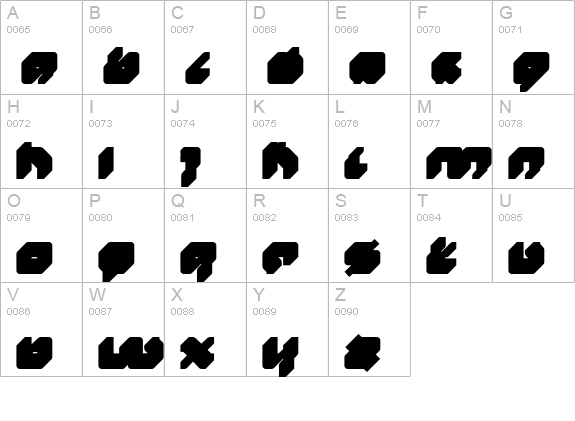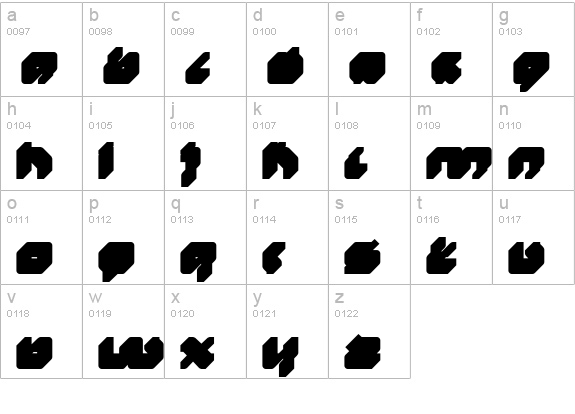
DS Mufdi3DL Font Details
The DS Mufdi3DL font is a modern and stylish typeface that adds a touch of elegance to any design project. With its unique 3D effect, this font is sure to make a statement and capture the attention of viewers. Perfect for branding, logos, headlines, and more, DS Mufdi3DL offers a sleek and professional look that will elevate your designs to the next level. The best part? DS Mufdi3DL font is available for free download at FontsMarket.com. So whether you're a designer looking to add a fresh new font to your collection or a business owner in need of a striking typeface for your marketing materials, DS Mufdi3DL is the perfect choice. Download it today and let your creativity shine with this stunning and versatile font.